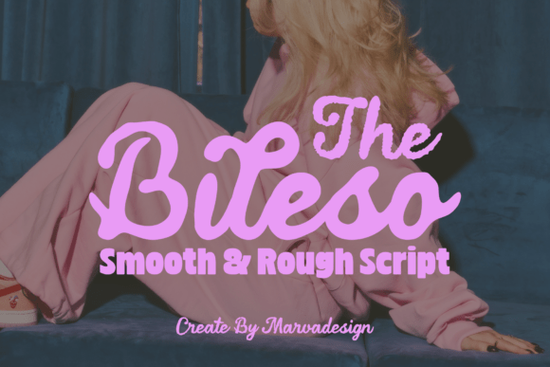
If you're looking for a script font that feels both nostalgic and fresh something with personality but still highly usable the The Bileso Font is worth your attention. It’s not just another retro script; it’s designed with real-world applications in mind, especially for makers who need standout typography for custom apparel, snack packaging, posters, or social media visuals. Its dual-style approach (clean contour lines and textured edges) gives you flexibility without needing to hunt for complementary fonts.
What makes The Bileso Font different from other retro scripts?
Most 70s-inspired fonts lean hard into either kitsch or clutter. The Bileso avoids both by balancing weight, rhythm, and spacing thoughtfully. The letterforms are thick and fluidly connected great for readability at larger sizes but the low-slanted loops add lightness and playfulness. That subtle tilt keeps it from feeling dated or overly formal. You’ll notice how well it pairs with minimal layouts or bold background colors, especially when used for short headlines or logo lockups.
It’s also one of the few display scripts on Creative Fabrica that ships with two distinct visual variants in the same family: one with smooth, crisp outlines and another with softly distressed, textured edges. That means you can switch between polished and tactile moods without changing fonts or even opening a new file.
Where does The Bileso Font work best?
This isn’t a body text font and it’s not meant to be. It shines where impact matters most:
- Custom t-shirt and hoodie designs, especially for indie streetwear brands or small-batch apparel shops
- Snack and beverage packaging, like artisanal candy bars, craft soda labels, or retro-style cookie boxes
- Print-on-demand posters and wall art, particularly for music-themed prints, café decor, or vintage-inspired quotes
- Beauty and cosmetic branding, where warmth and hand-drawn charm help products stand out on crowded shelves or Instagram feeds
- Social media headers and story text overlays, where quick recognition and strong visual rhythm matter more than fine detail
Because it includes both uppercase and lowercase letters, standard punctuation, and basic numerals, you won’t hit layout roadblocks mid-design. And since it’s built as a true OpenType font, you get consistent kerning and ligature support right out of the box no manual tweaking needed for common letter pairs like “Th” or “ow”.
How does it compare to other popular script fonts?
If you already use Slowing Font, you’ll appreciate how The Bileso trades delicate thin strokes for confident, bolder shapes making it easier to scale up for large-format prints. Compared to Candy Diary Font, which leans sweeter and more handwritten, The Bileso holds tighter structure and better spacing for tight compositions. For those who love Alex Brush’s elegance but want something less formal, The Bileso delivers similar flow with more attitude. And while Raisin Cookie Family Font offers versatility across weights, The Bileso focuses on one expressive voice ideal if you’re building a cohesive brand identity rather than needing dozens of variations.
You can see real examples of The Bileso Font in action on Creative Fabrica’s marketplace, where users share mockups of tote bags, enamel pins, and sticker sheets all made with this font as the centerpiece.
- It works best at 18pt and larger avoid using it below 14pt, especially for print
- The textured version adds visual interest but may require slight stroke expansion or outline conversion for vinyl cutting or embroidery digitizing
- Pair it with a clean sans-serif (like Montserrat or Poppins) for supporting text never with another script font unless intentionally contrasting styles
- Test both versions side-by-side in your design software: sometimes the clean contour reads better on screens, while the textured edge pops more on physical products
Next step: Try pairing The Bileso Font with a muted pastel palette and a simple geometric shape (like a circle or rounded rectangle) to build a quick mockup for a sticker or product label. You’ll immediately see how its rhythm and contrast hold up even at small sizes.